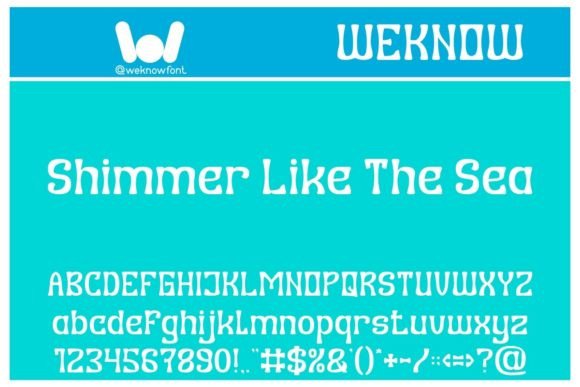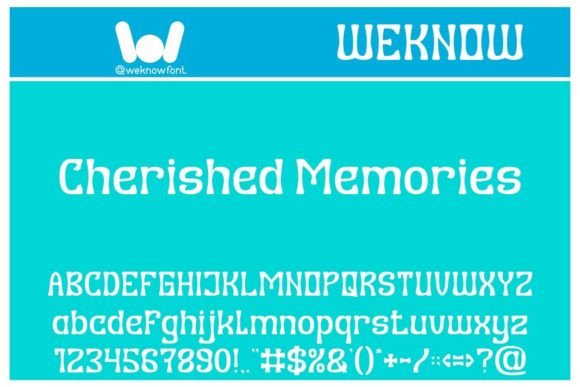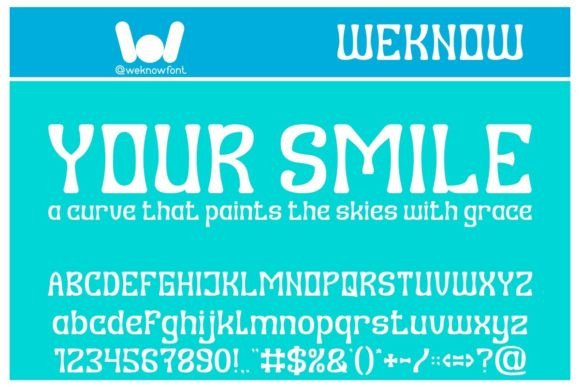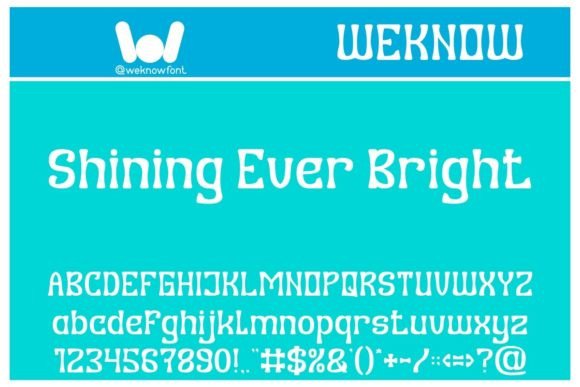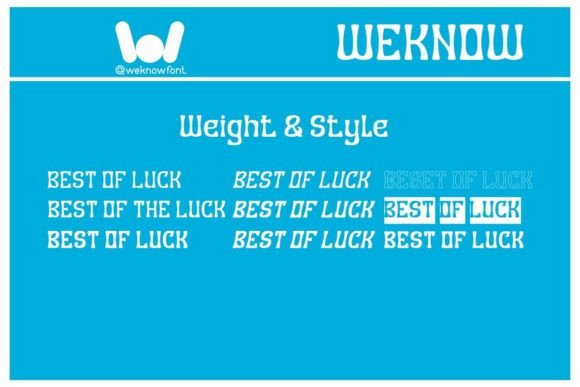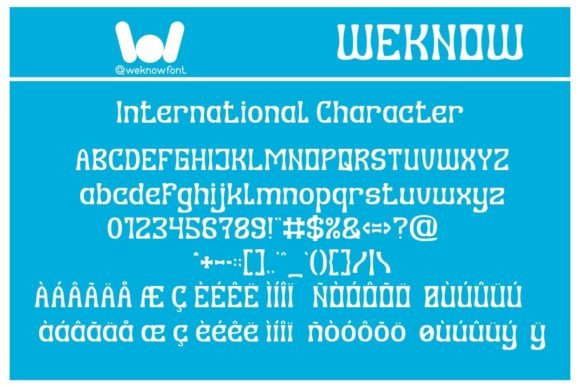
Introducing the Best of Luck Font: Elevate Your Designs with Elegance and Sophistication
In the world of design, typography plays a crucial role in conveying messages, expressing creativity, and building brand identities. For designers and crafters seeking a font that exudes elegance, sophistication, and a touch of luck, the Best of Luck Font is an exceptional choice. This fancy display font is meticulously crafted to make your designs stand out, whether you’re working on a logo, logotype, headlines, or any creative project.
The Best of Luck Font is designed to be versatile, making it suitable for a wide range of applications. Here are some of the areas where this font truly shines:
- Logo and Logotype: Create a lasting impression with a unique and memorable logo that captures the essence of your brand.
- Headlines: Add a touch of sophistication to your articles, blog posts, and advertisements with eye-catching headlines.
- Corporate Identity and Brand Identity: Establish a strong brand presence with a font that communicates professionalism and elegance.
- Apparel Industry: Elevate your fashion designs with a font that adds a touch of luxury and style.
- Posters, Music, Movies, Games: Make your creative projects stand out with a font that demands attention.
- Magazines, Books, Comics, Cartoon: Add a touch of whimsy and sophistication to your publications.
- YouTube, Instagram, Websites: Enhance your online presence with a font that reflects your brand’s personality.
Why Choose the Best of Luck Font?
With so many fonts available, what sets the Best of Luck Font apart? Here are some compelling reasons to choose this exceptional font:
- Unique Design: The Best of Luck Font boasts a distinctive design that sets it apart from more traditional fonts.
- Elegant and Sophisticated: This font exudes elegance and sophistication, making it perfect for high-end designs.
- Highly Legible: Despite its ornate design, the Best of Luck Font remains highly legible, ensuring your message is conveyed clearly.
- Customizable: Experiment with different colors, sizes, and styles to make the font your own.
Tips for Using the Best of Luck Font
To get the most out of the Best of Luck Font, consider the following tips:
- Pair with Complementary Fonts: Combine the Best of Luck Font with simpler fonts to create visual interest and hierarchy.
- Use for Headlines and Titles: Reserve the Best of Luck Font for headlines and titles, and use a more straightforward font for body text.
- Experiment with Colors: Try out different colors and gradients to add depth and dimension to your designs.
The Best of Luck Font is an exceptional choice for designers and crafters seeking to elevate their designs with elegance and sophistication. With its versatility, unique design, and high legibility, this font is perfect for a wide range of creative projects. Whether you’re working on a logo, headlines, or any design project, the Best of Luck Font is sure to bring a touch of luck and success to your endeavors.